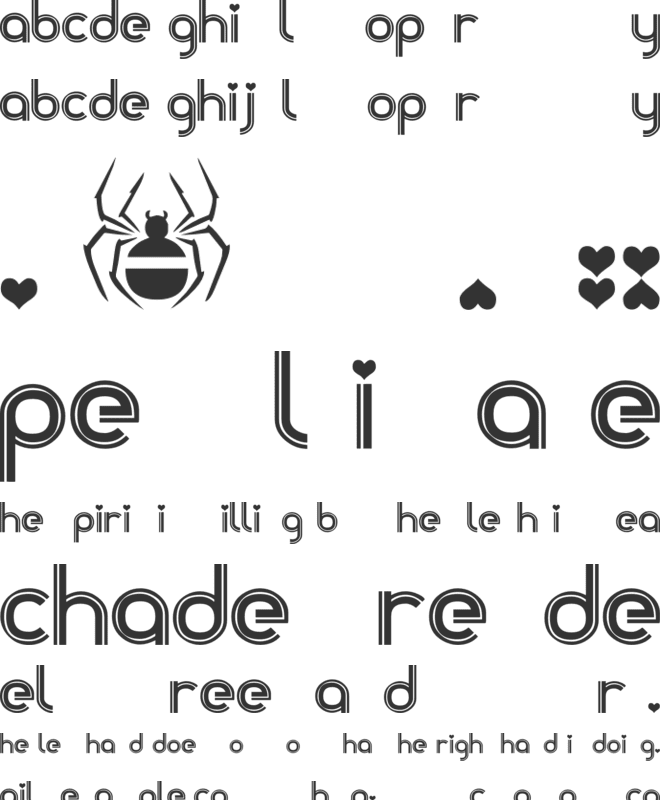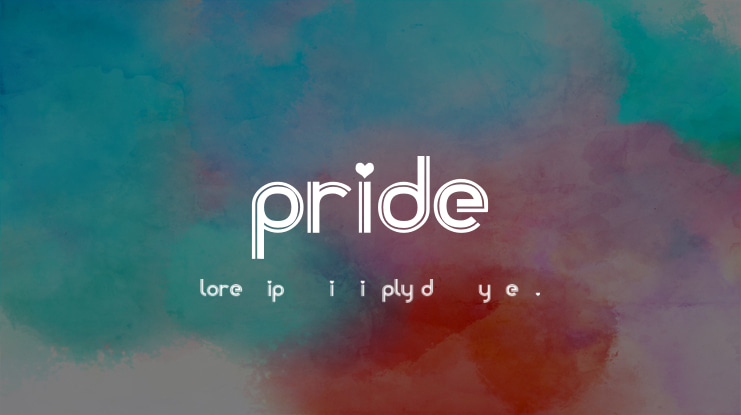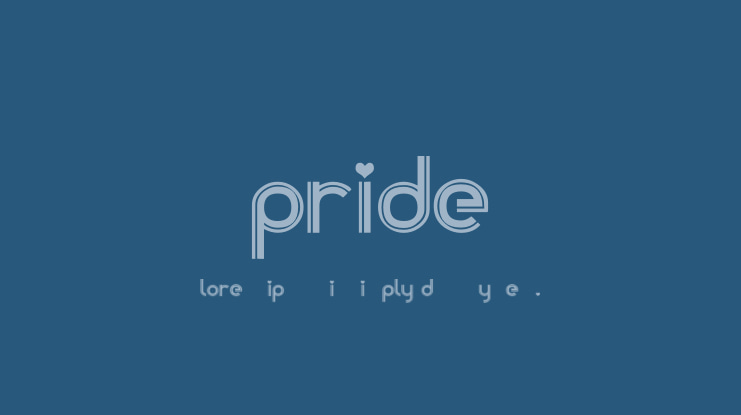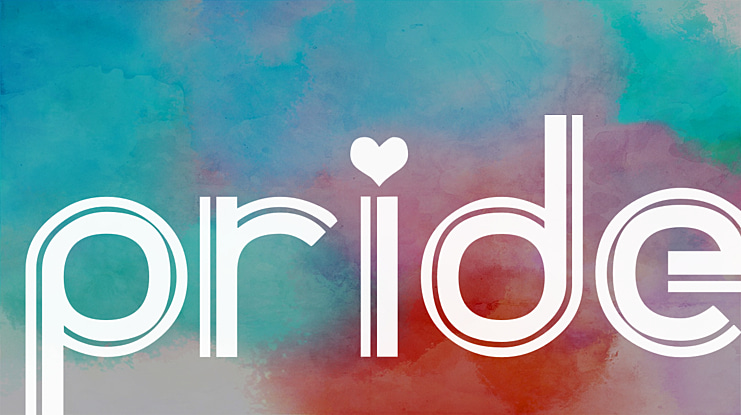
Lesbian, Gay, Bisexual, Transgender and Queer (LGBTQ) Pride Month is currently celebrated each year in the month of June to honor the 1969 Stonewall Uprising in Manhattan. The Stonewall Uprising was a tipping point for the Gay Liberation Movement in the United States. In the United States the last Sunday in June was initially celebrated as "Gay Pride Day," but the actual day was flexible.
I had the idea for this Pride Rainbow inspired typeface thay lends it's semicircular shape to the lower case set, there are no capitals available in this version. I am now totally hooked on creating many more Open Type SVG fonts, I might even revamp a few of my oldest typefaces over the next few months.
Scalable Vector Graphic typefaces contain extra color info, so can sometimes be up to up to 10 times the size of the standard OTF version, so tend to slow down the system fonts folder. I did finally compile an Open-Type SVG version that's compatible with Adobe, Mozilla and Apple by reducing the original color density down to less than 10.